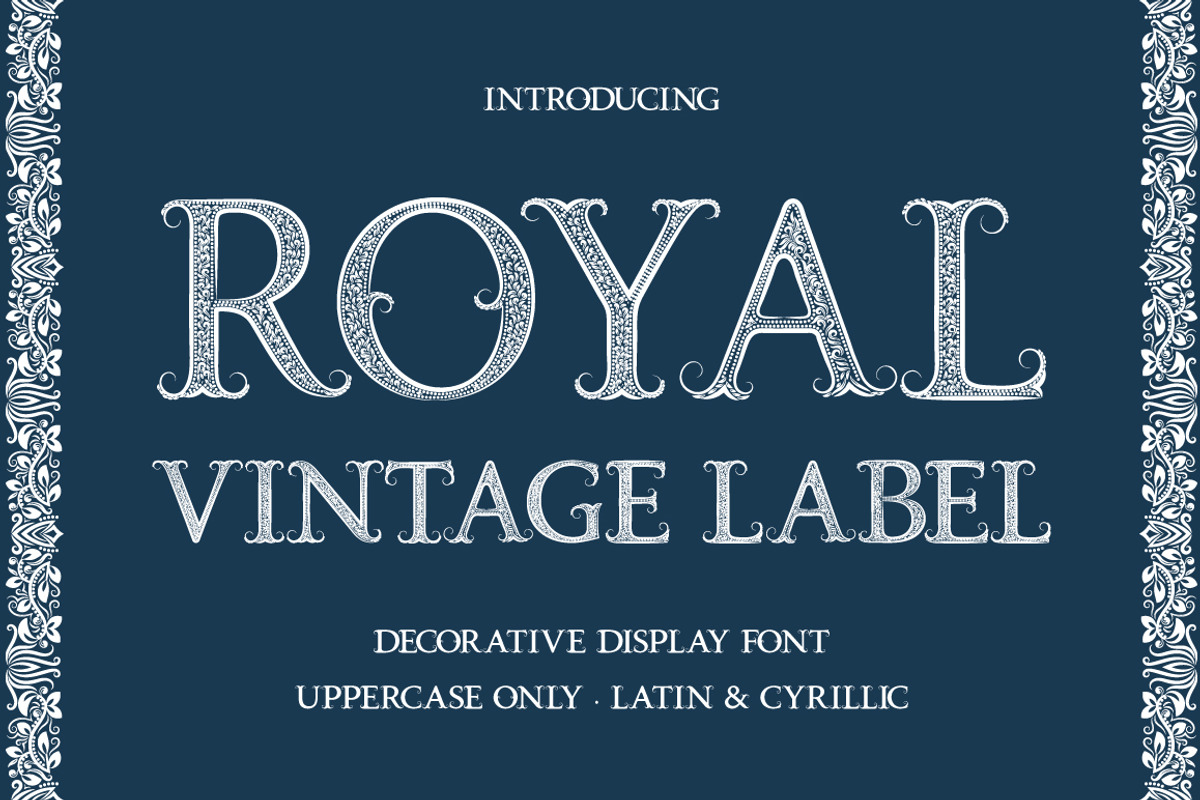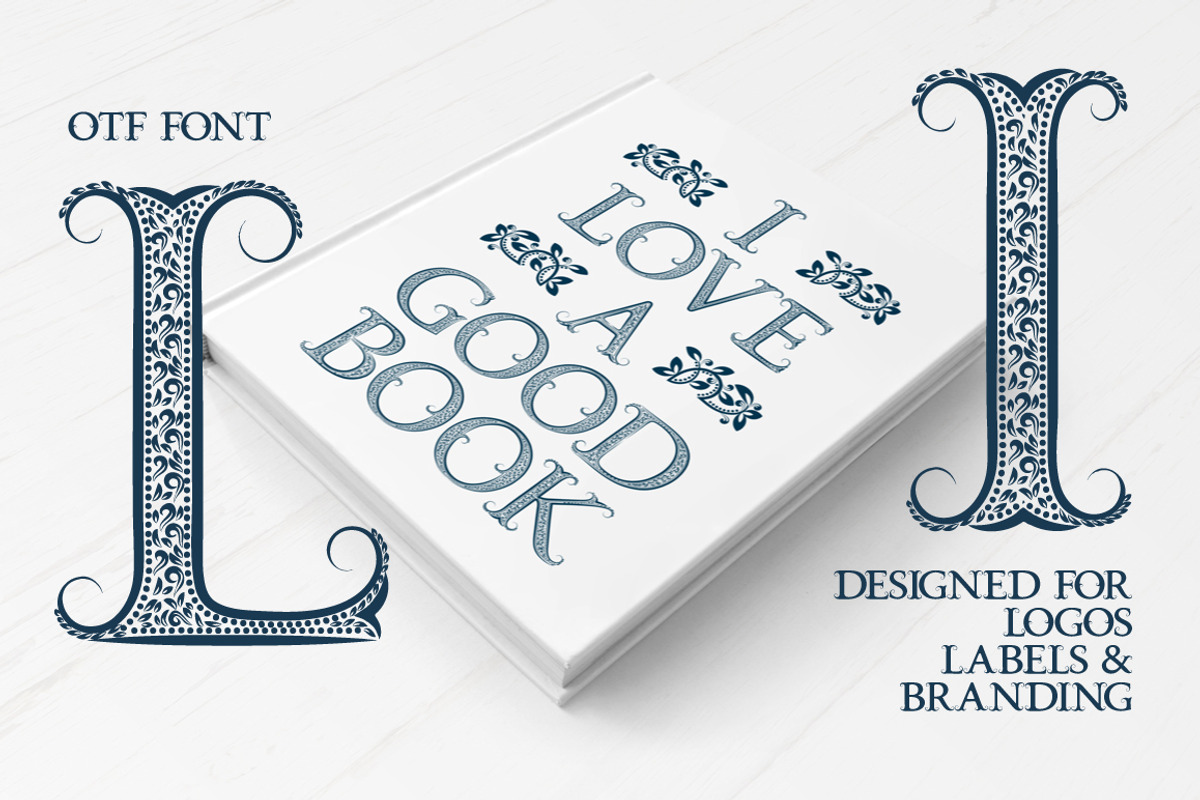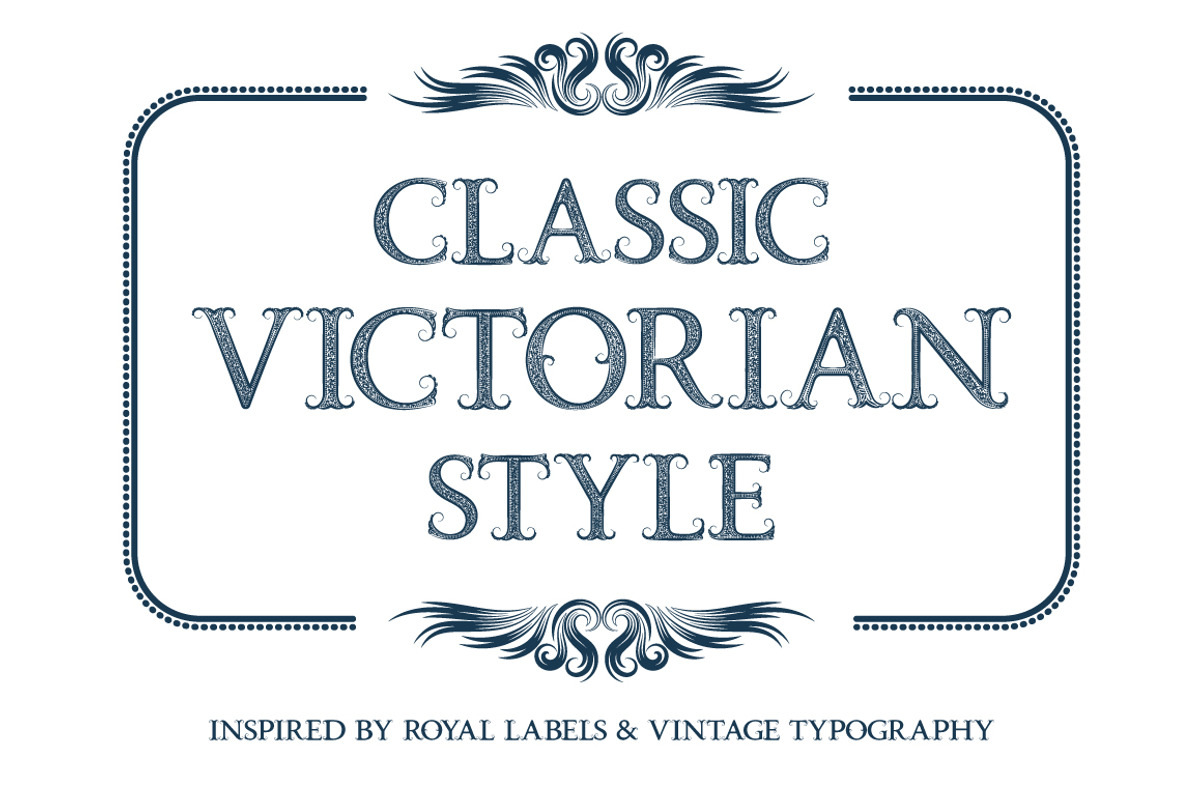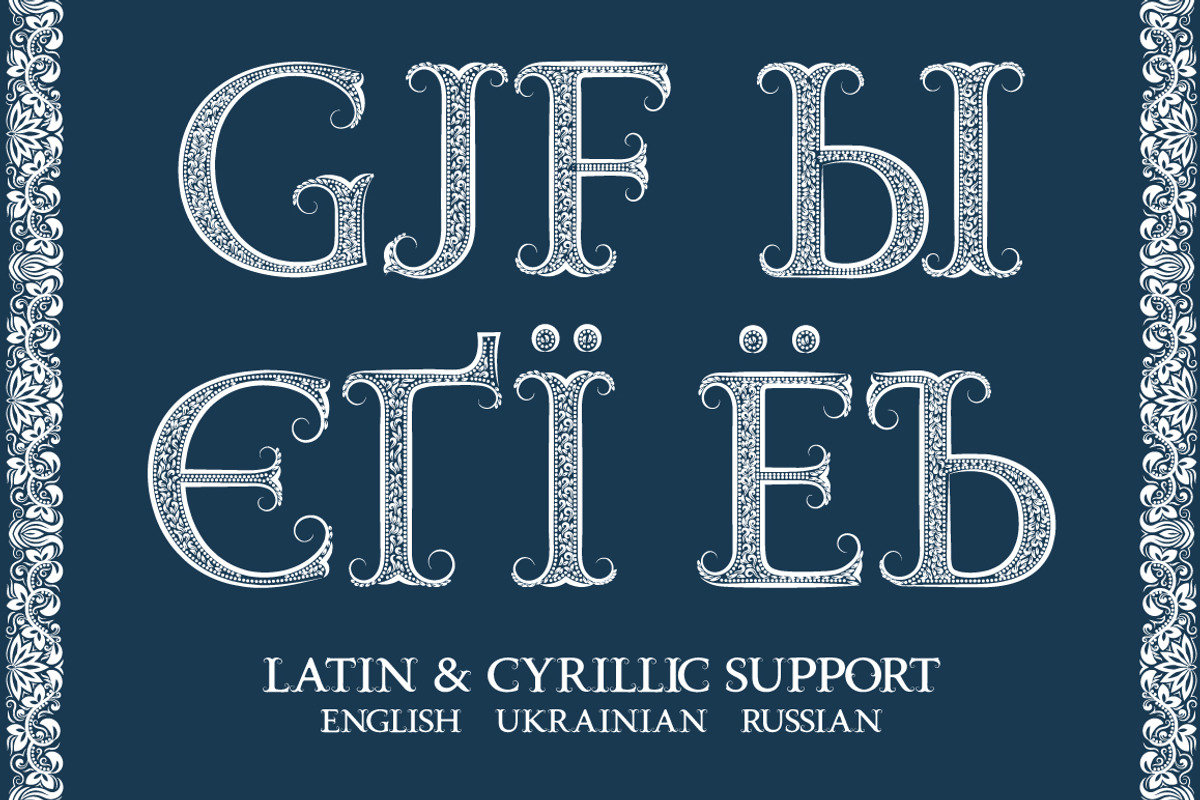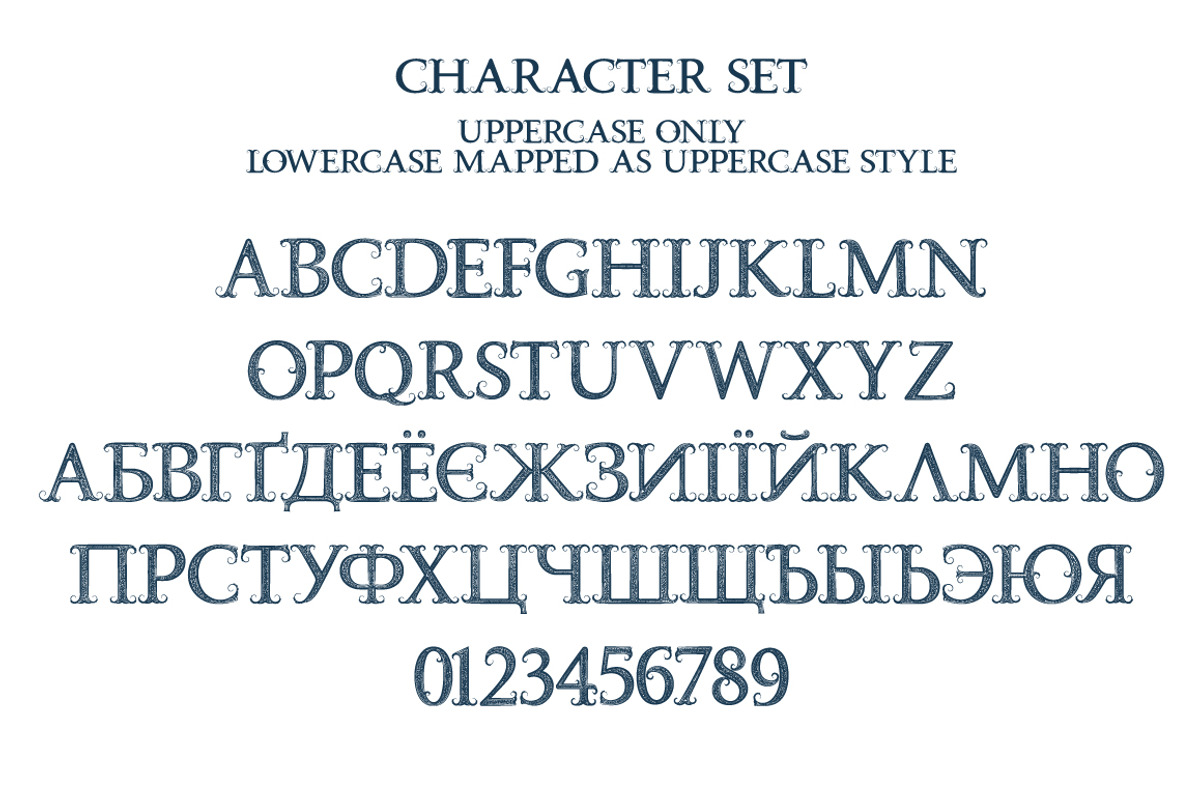
Royal Vintage Label Font
Royal Vintage Label is a decorative display font inspired by classic royal emblems, vintage labels, and timeless typography.
Designed for logos, branding, packaging, labels, badges, posters, and editorial projects, this font delivers a strong handcrafted vintage character with refined kerning and balanced spacing.
The font supports both Latin and Cyrillic characters and works perfectly in professional design software and modern web browsers.
- Vintage logos & branding
- Labels & packaging design
- Badges, emblems & stamps
- Posters & signage
- Editorial & headline typography
Font features:
- Decorative display style
- Carefully crafted kerning (Latin & Cyrillic)
LANGUAGE SUPPORT
- Basic Latin
- Cyrillic